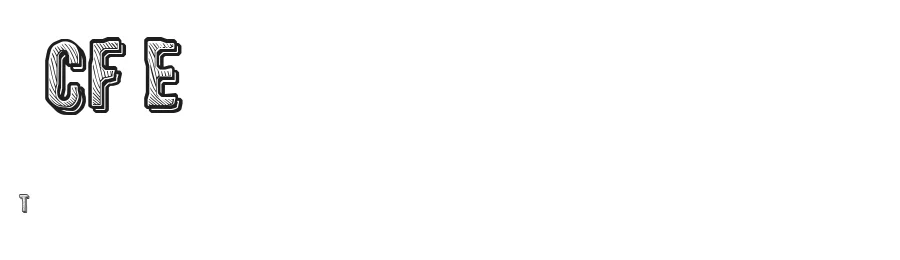
About Abstract Abomination Font
Abstract Abomination is a decorative font designed by High Directive Fonts. It includes 653 glyphs, a regular weight, TTF (TrueType) format, and 292 languages. Abstract Abomination is free to download; check the license details on this page before commercial use. Decorative fonts like Abstract Abomination work best for logos, posters, packaging, and standout headlines.
Abstract Abomination Font is a decorative font that shines as a display or heading face. Pair it with a clean sans-serif or serif font for body text β the contrast creates a clear hierarchy while the two styles stay balanced and easy to read.
Abstract Abomination Font
Abstract Abomination Font is a decorative typeface by High Directive Fonts, ideal for logos, invitations, branding, and creative projects.